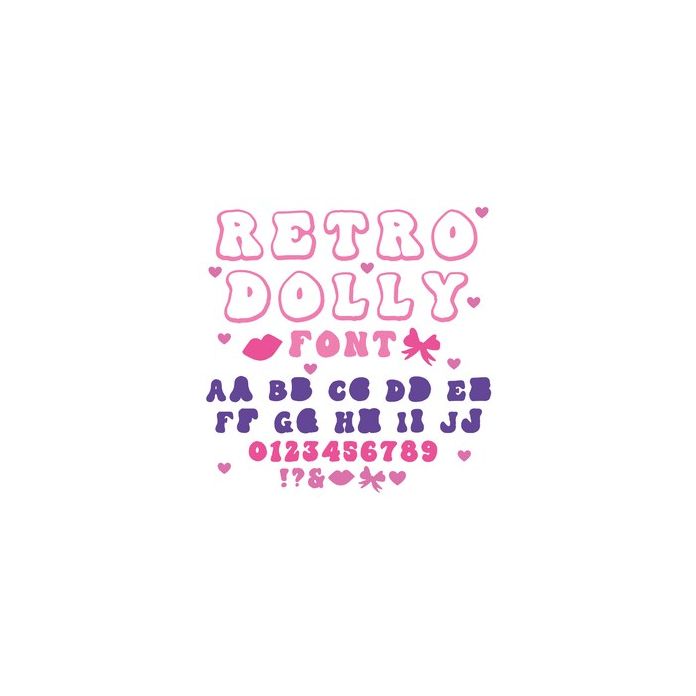
Retro Dolly Girly Layered Font - Uppercase is the bottom mat layer and lowercase is the regular text for the top. Includes numbers, doodles and punctuation.